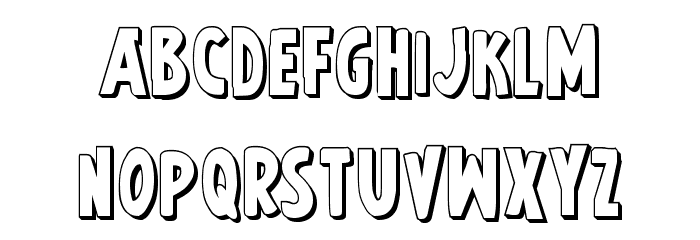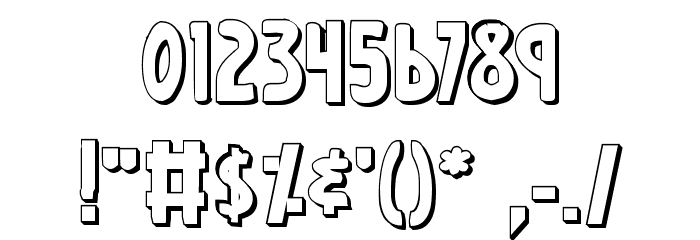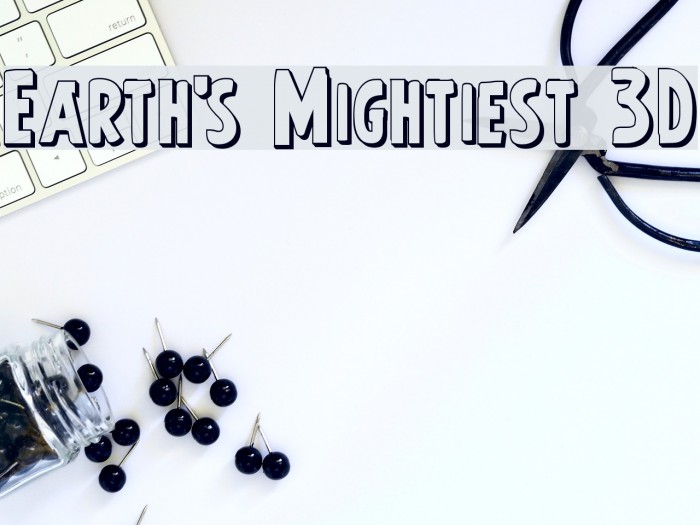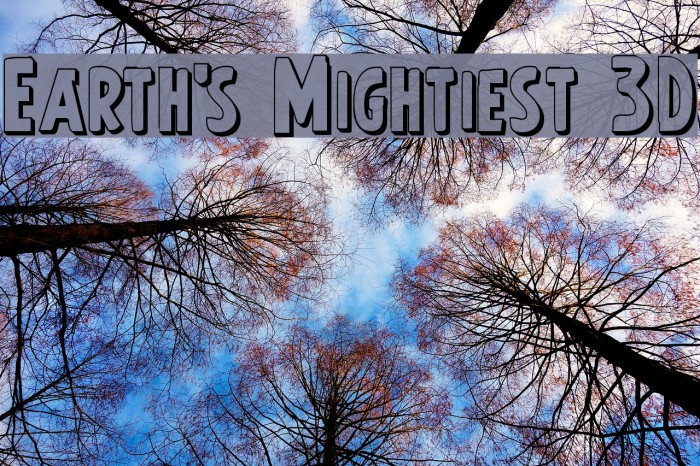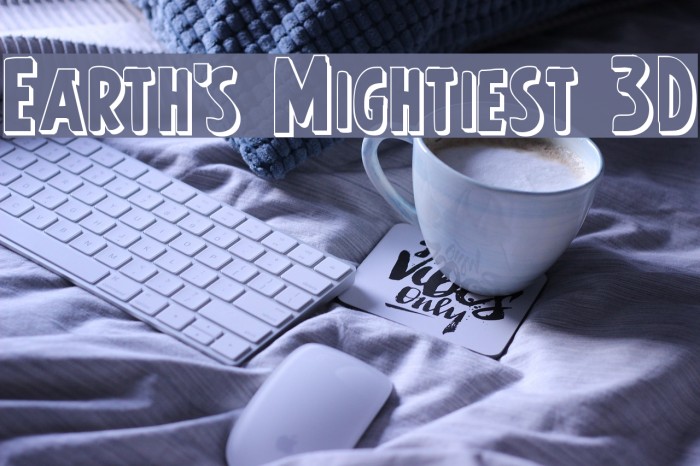
Earth's Mightiest 3D Font
This font features a bold, three-dimensional style with a playful and dynamic appearance. The characters are outlined, giving them a shadow effect that enhances their 3D look. The uppercase and lowercase letters maintain a consistent thickness, contributing to a uniform and cohesive design. The numerals and special characters are crafted with the same attention to detail, ensuring they blend seamlessly with the alphabet. This font's unique style makes it stand out, perfect for capturing attention in various design contexts.
A bold, 3D outlined font with a playful and dynamic style.
- Proposed Projects: Ideal for comic book titles, children's book covers, posters, and playful branding projects.